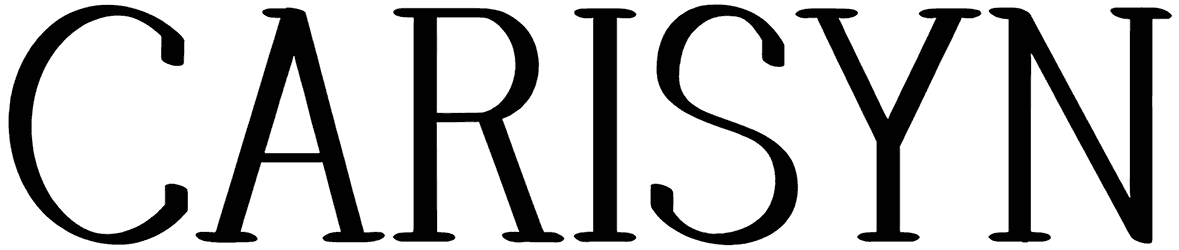
Carisyn Font
Going back to the roots by using a serif font like Carisyn is one of the best ways to generate attractive and popular graphic content, such as posters, business cards, flyers, brochures, diplomas, invitations, and announcements. With a classic and stylish design, this typeface can instill a sense of credibility, respect, trust, and professionalism in the audience, thus greatly increasing the efficiency of your content.
Carisyn is a casual looking serif font, that features a simple and minimalist feel.